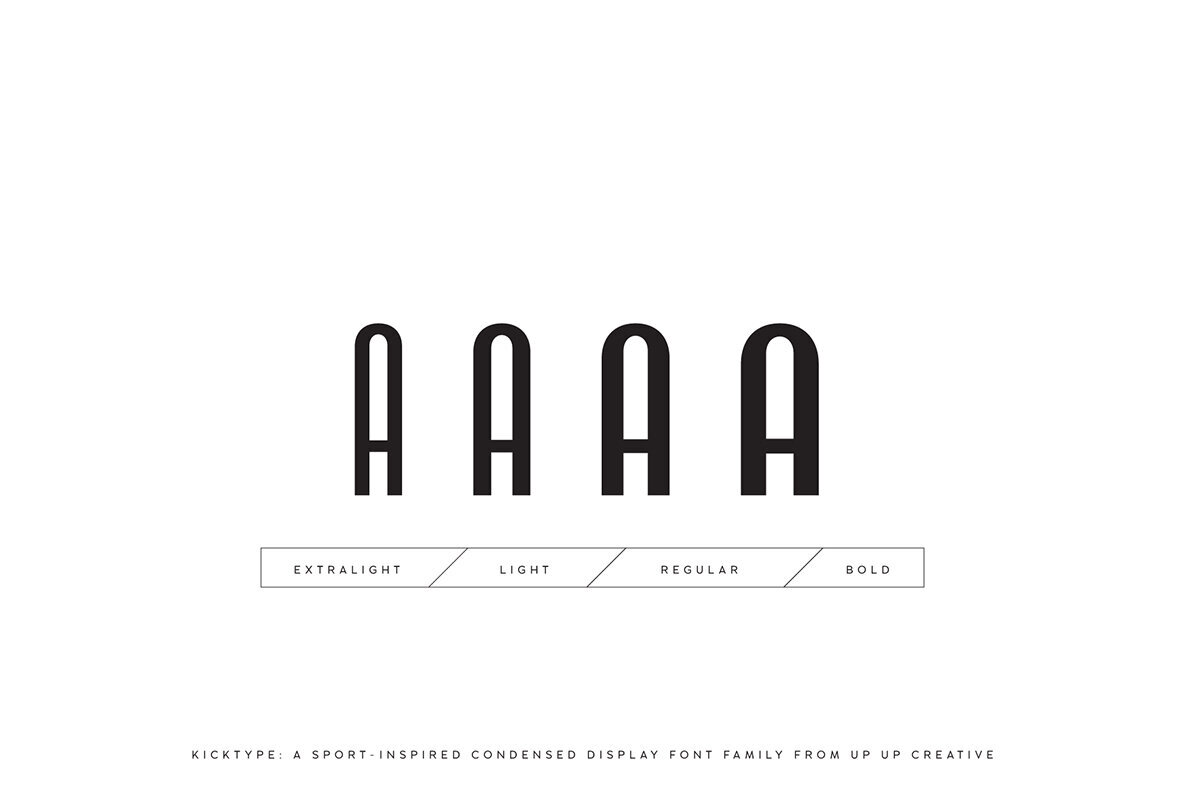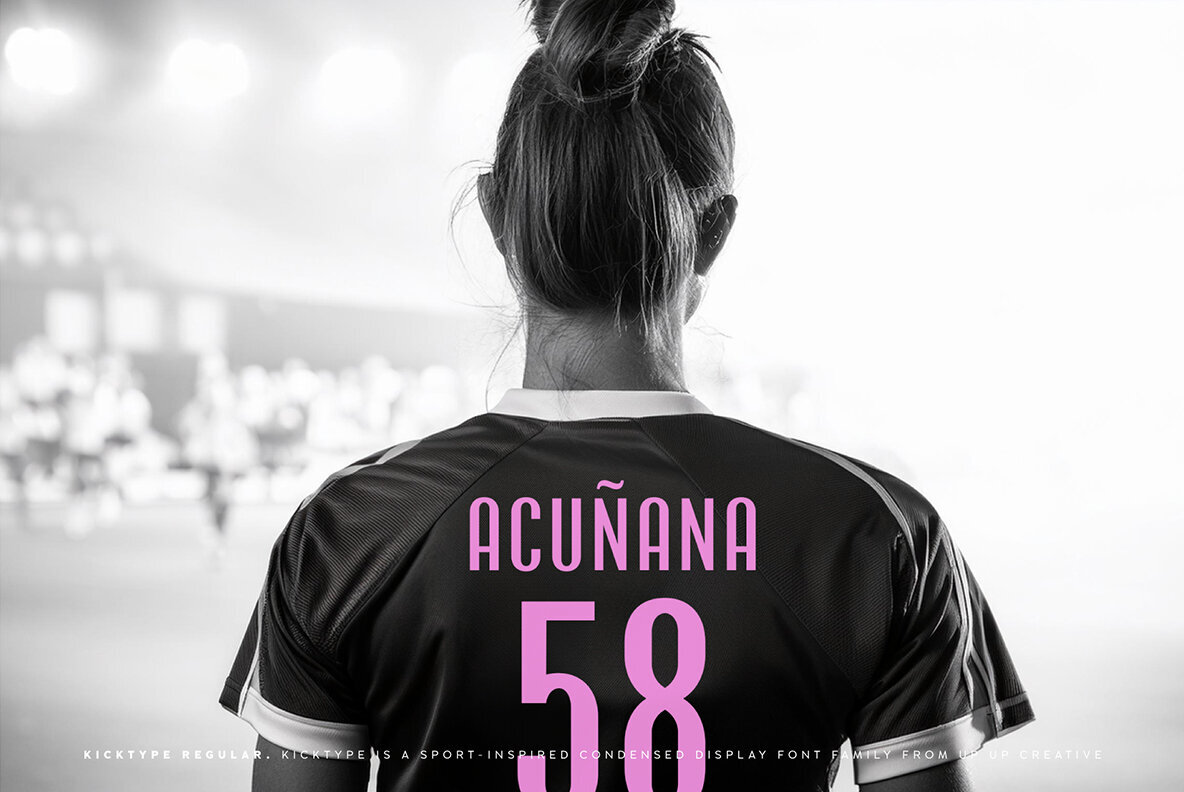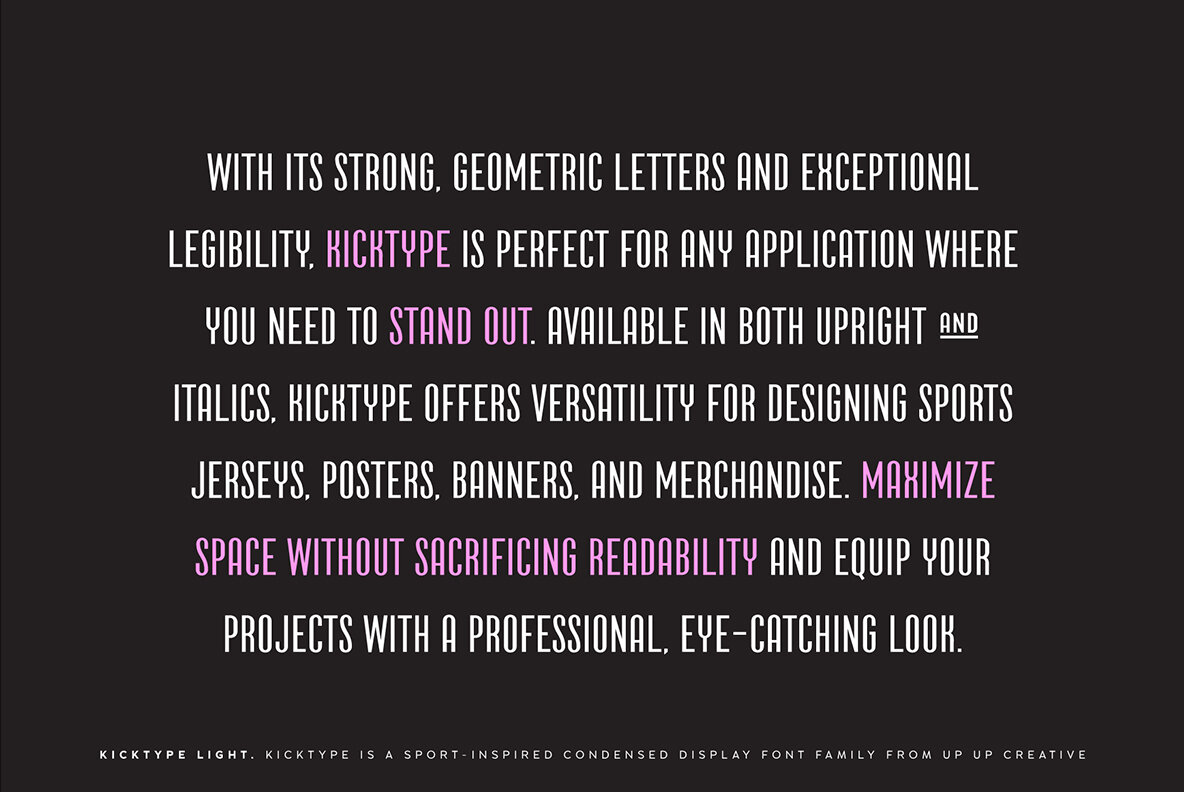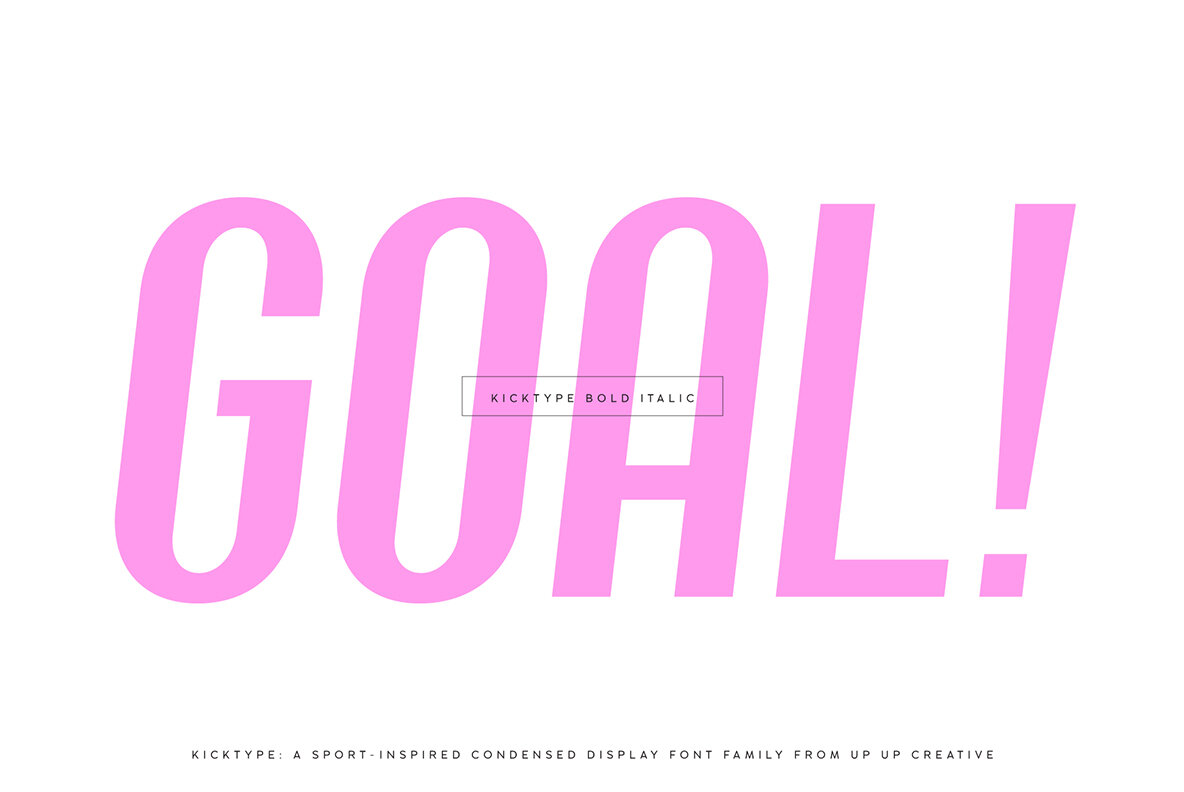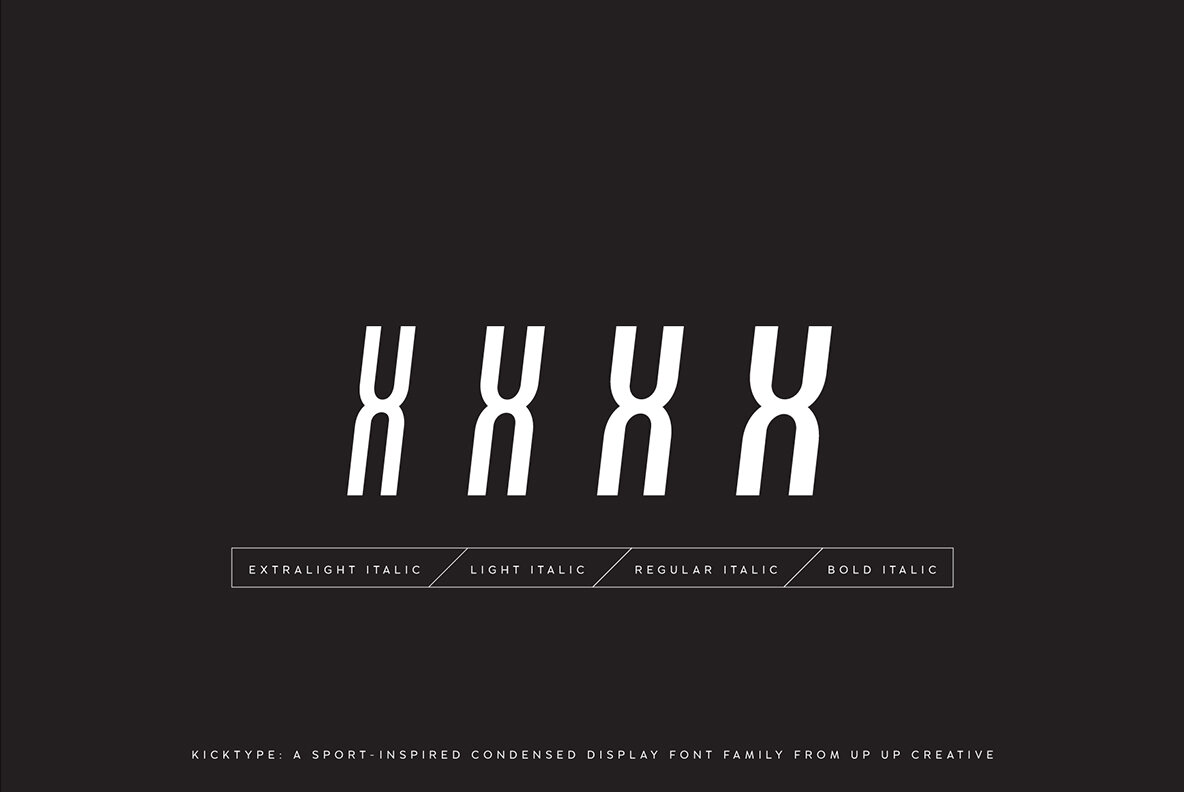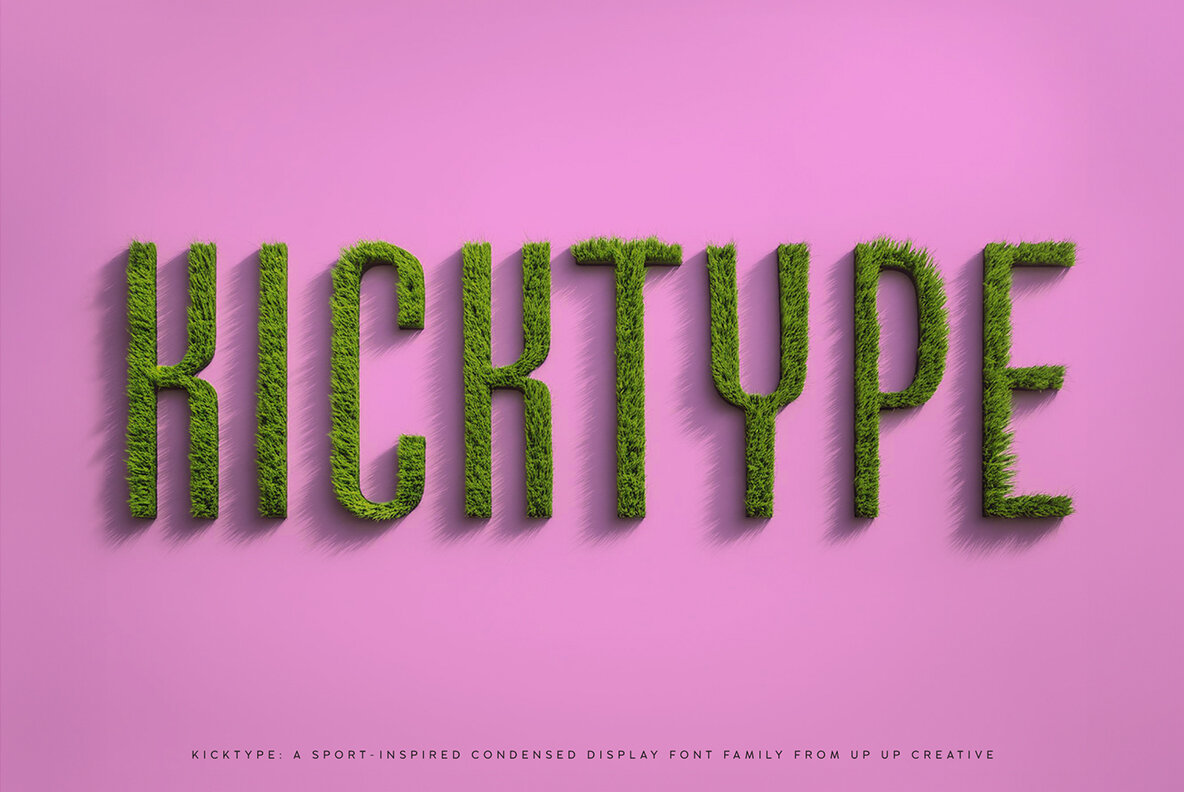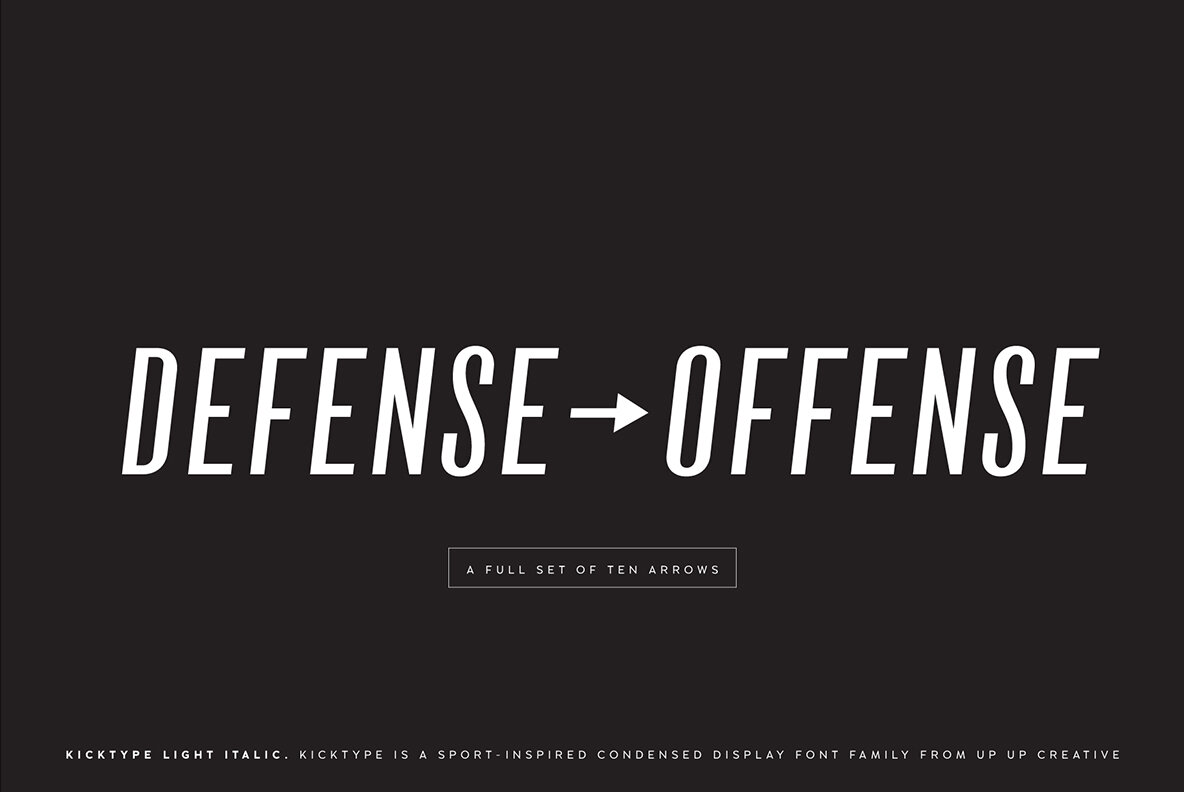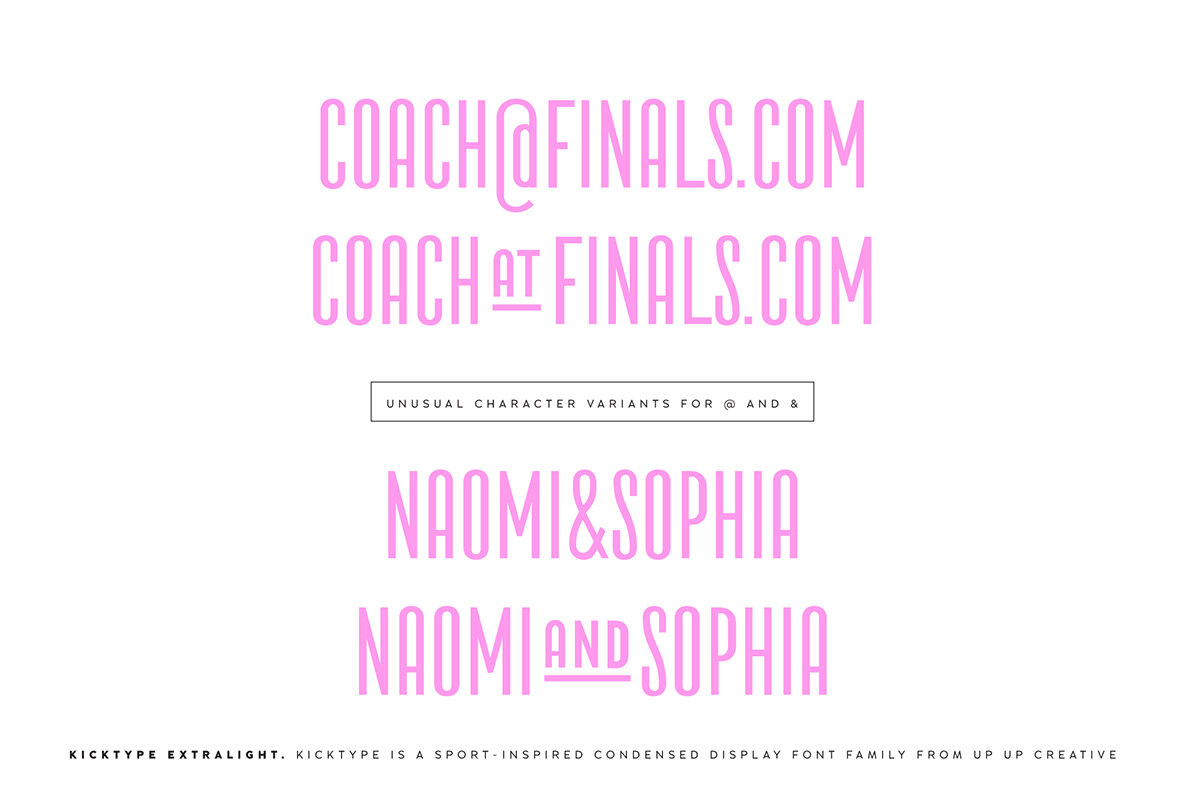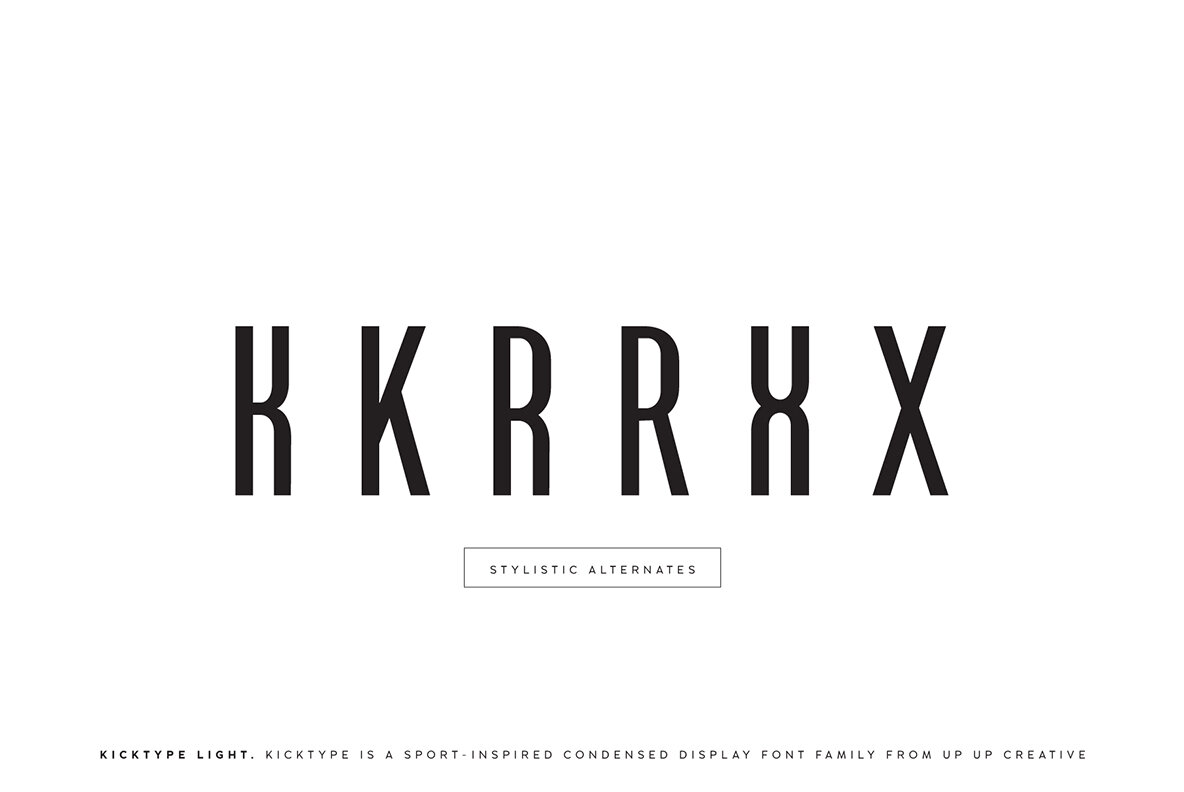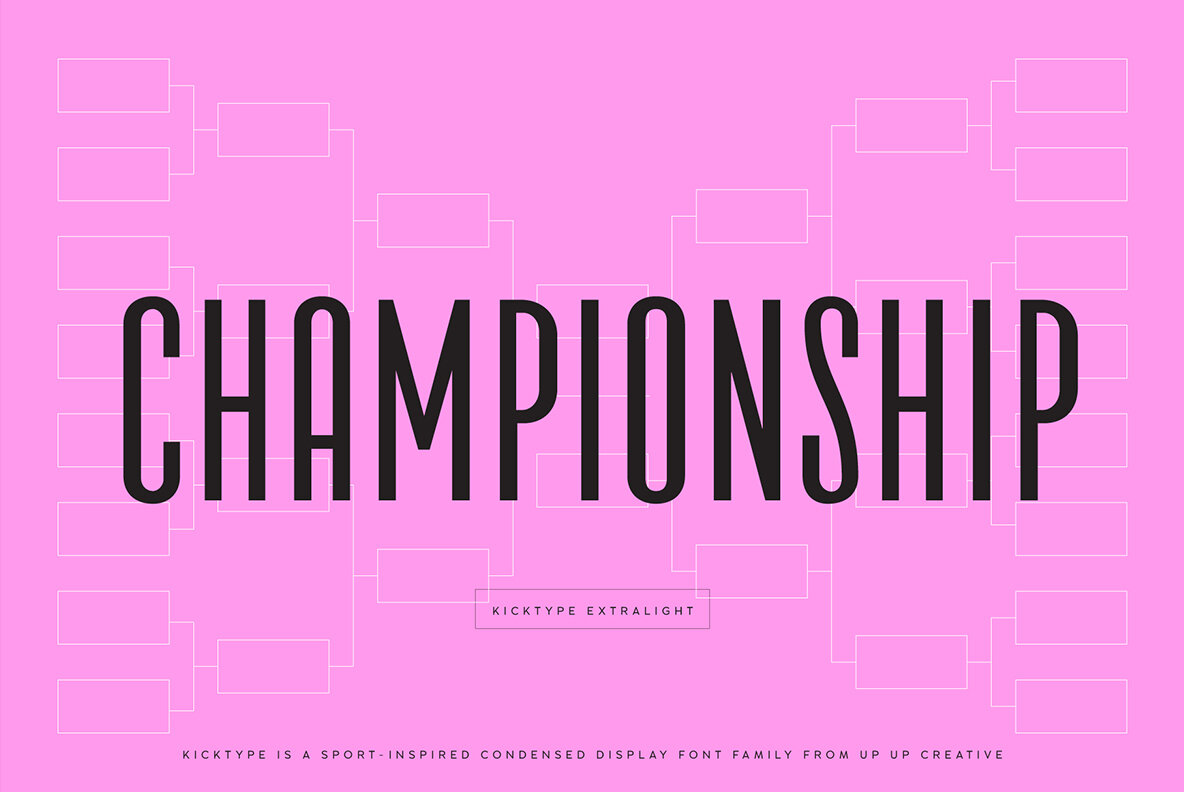
Kicktype Font
Meet Kicktype, a sport-inspired condensed font family from Up Up Creative. With its strong, geometric letters and exceptional legibility, Kicktype is perfect for any application where you need to stand out. Available in both upright & italic styles, Kicktype offers versatility for designing sports jerseys, posters, banners, and merchandise. Maximize space without sacrificing readability and equip your projects with a professional, eye-catching look.